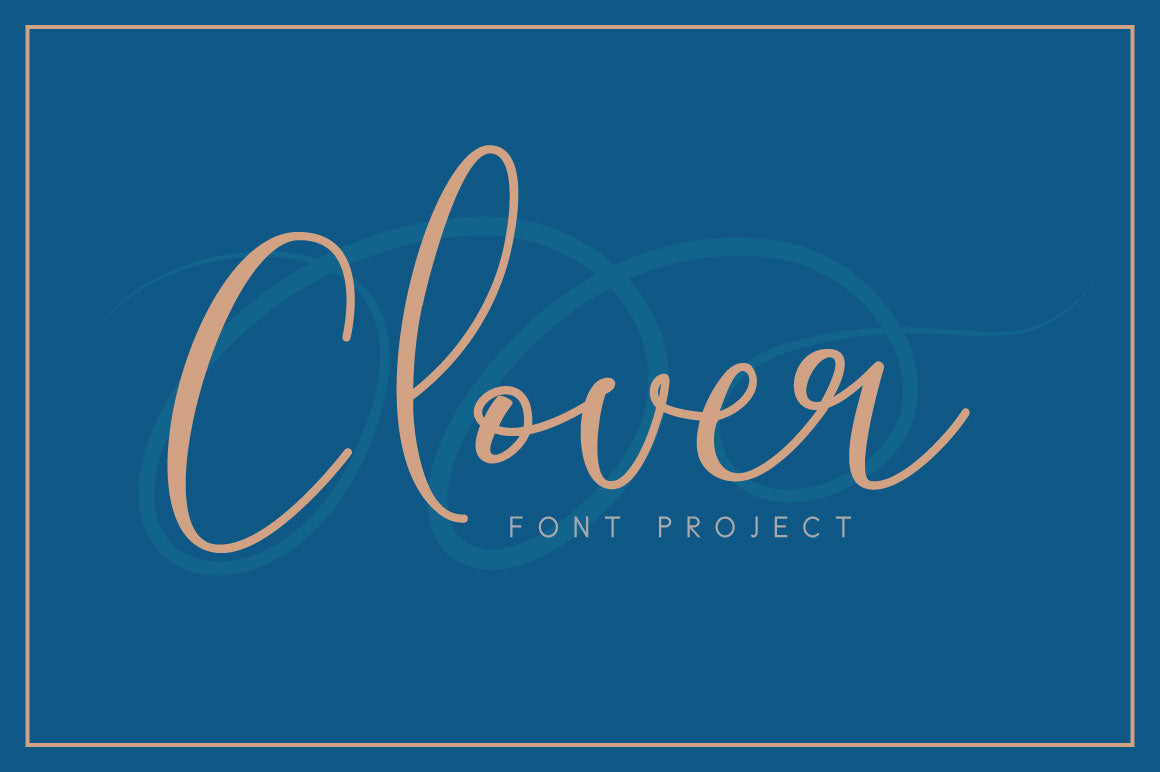
Today we're glad to feature this free clover typeface. This is a downloadable typeface file brought to you by Font Bundles. Easily amaze your audience with this fancy font and make your graphic designs pop up from the crowd.